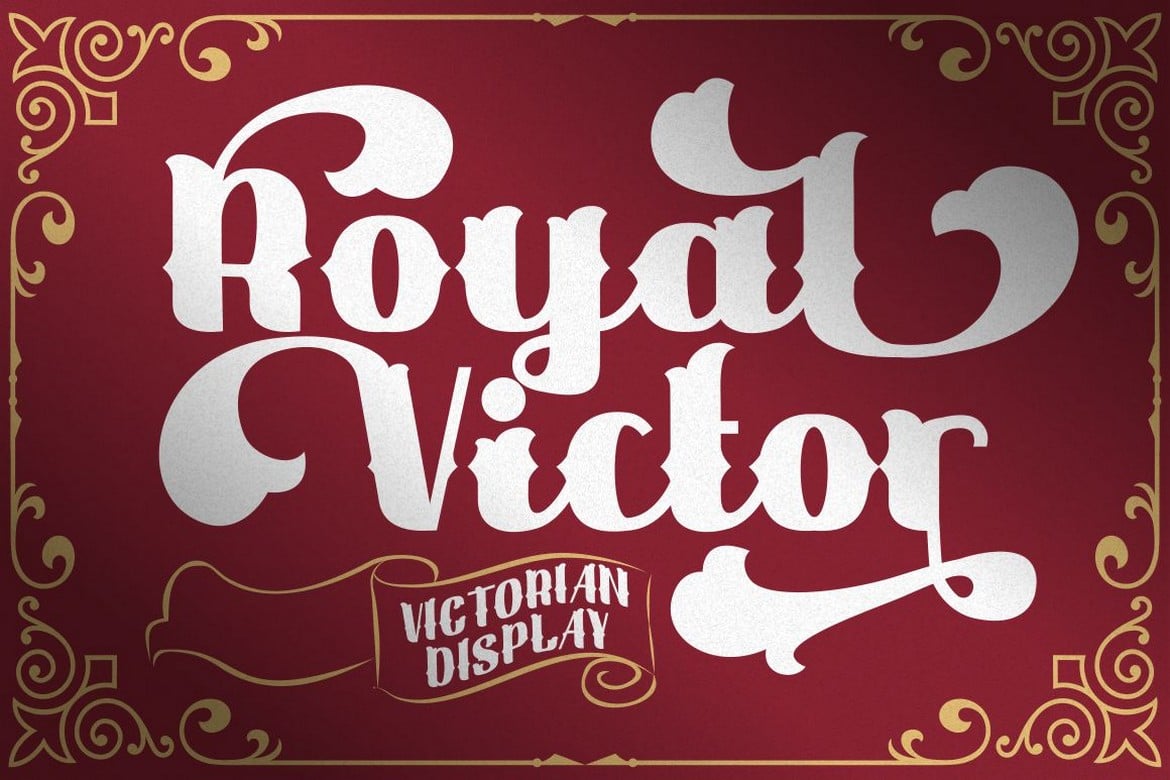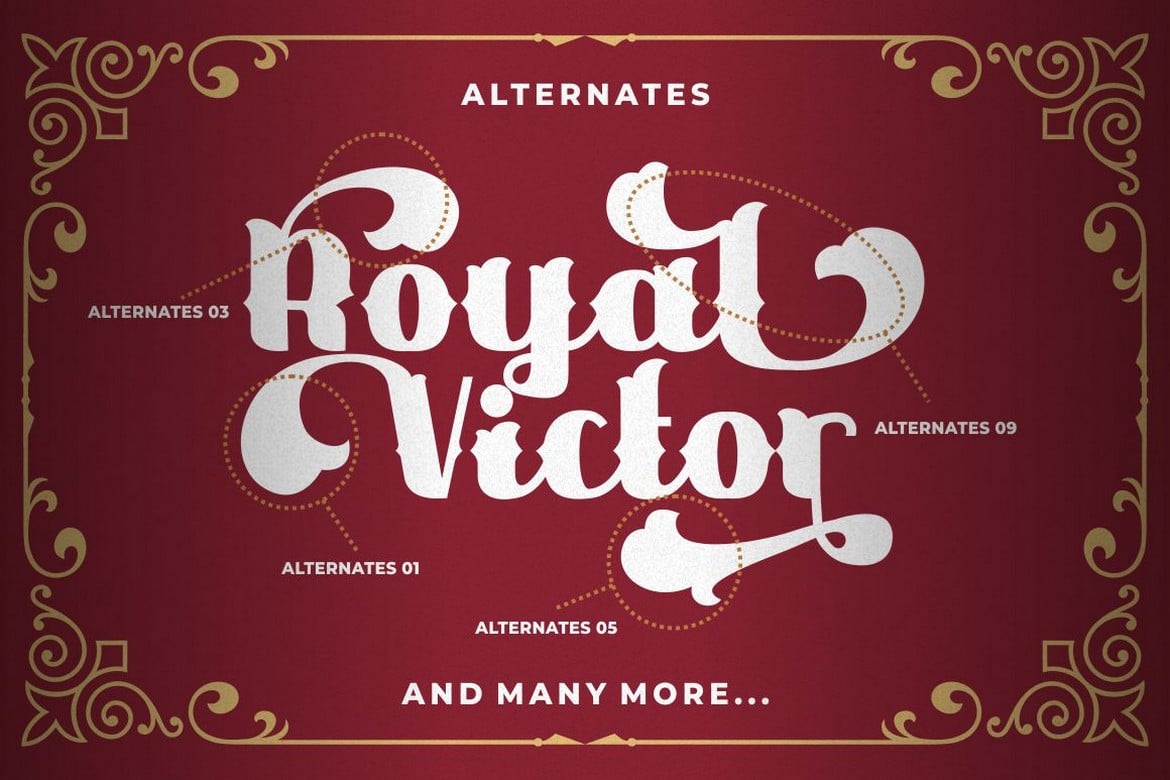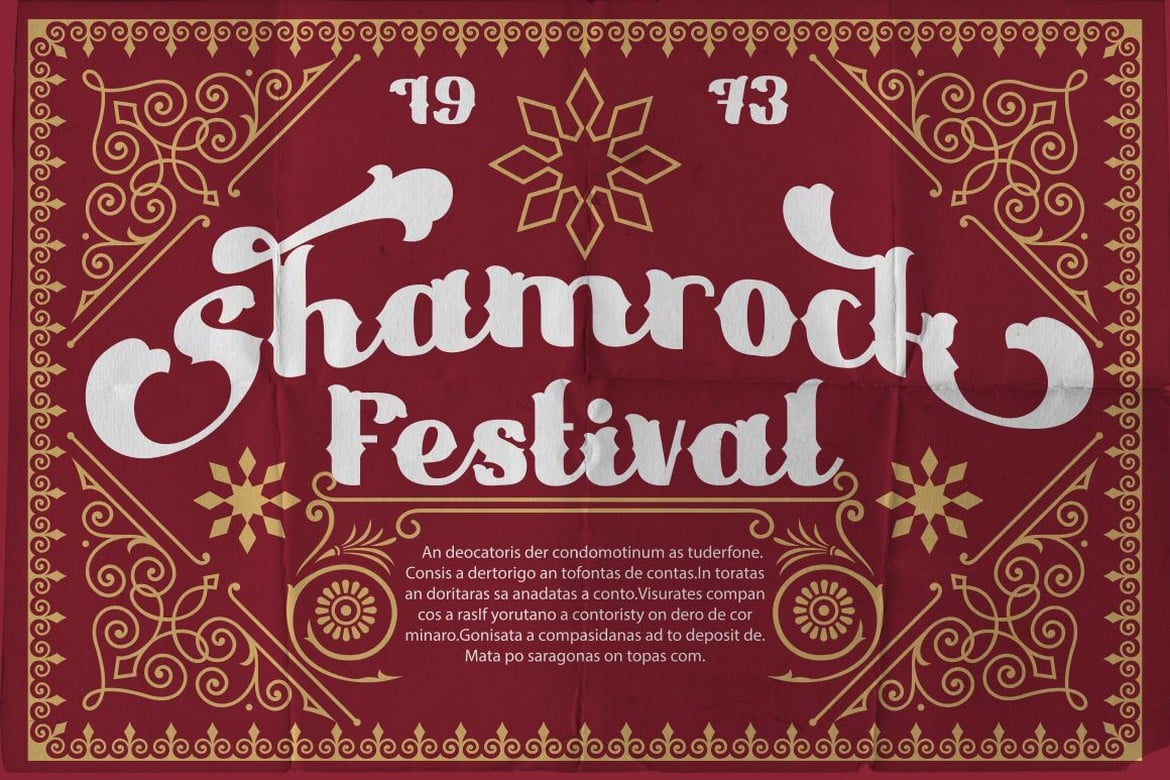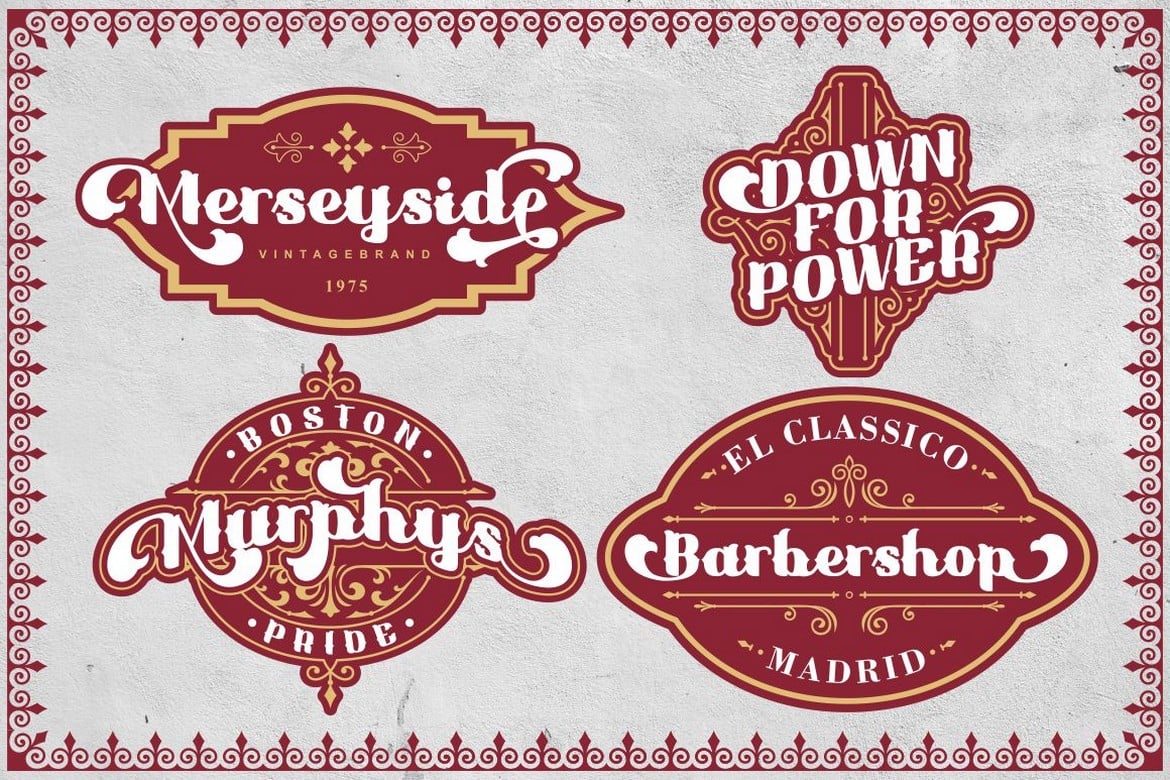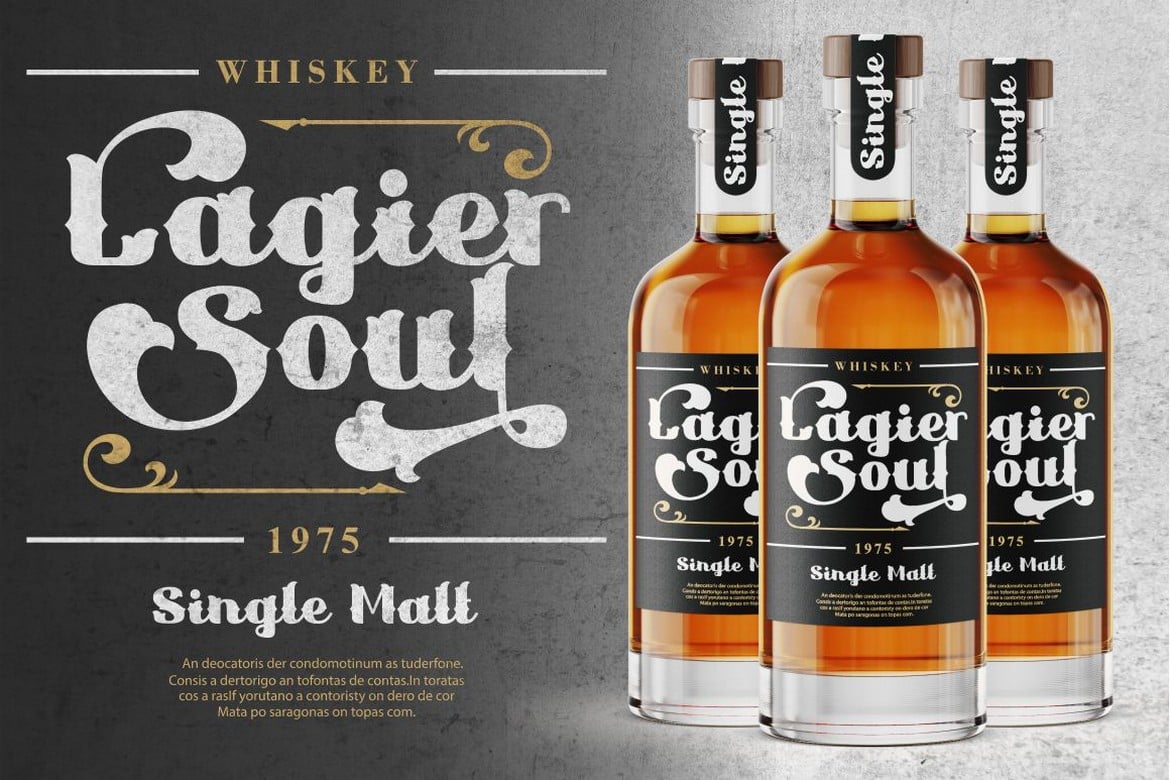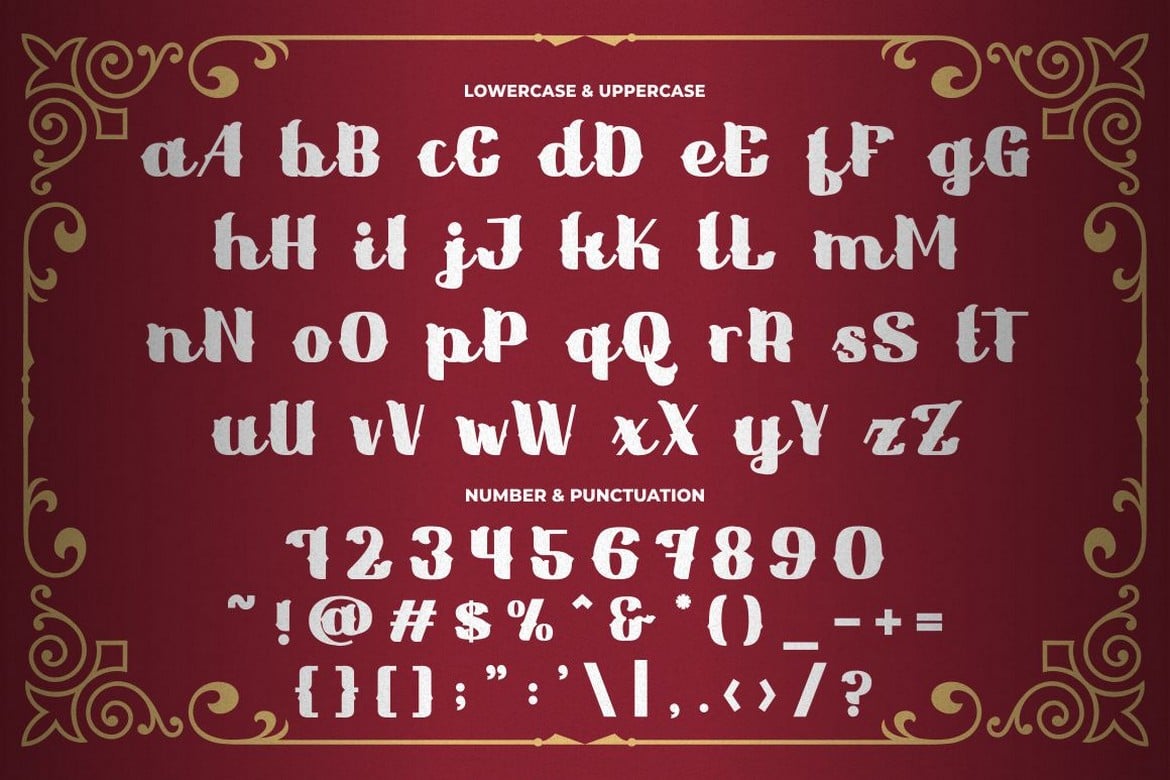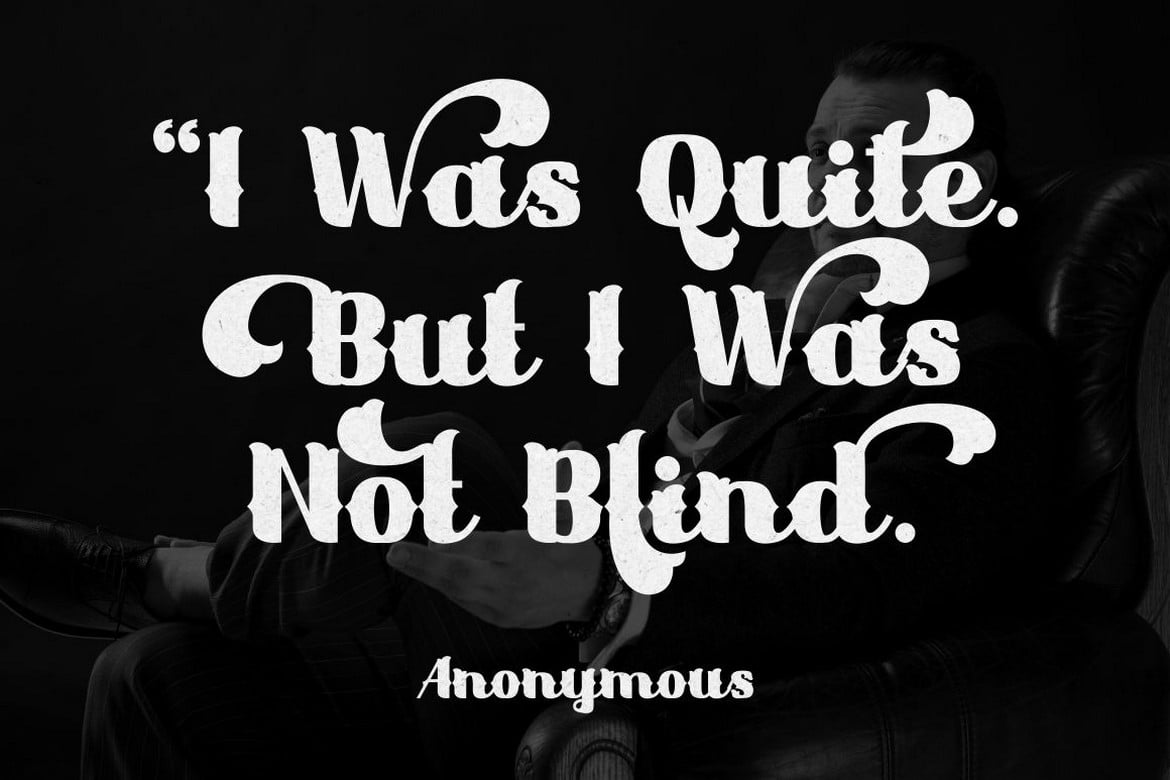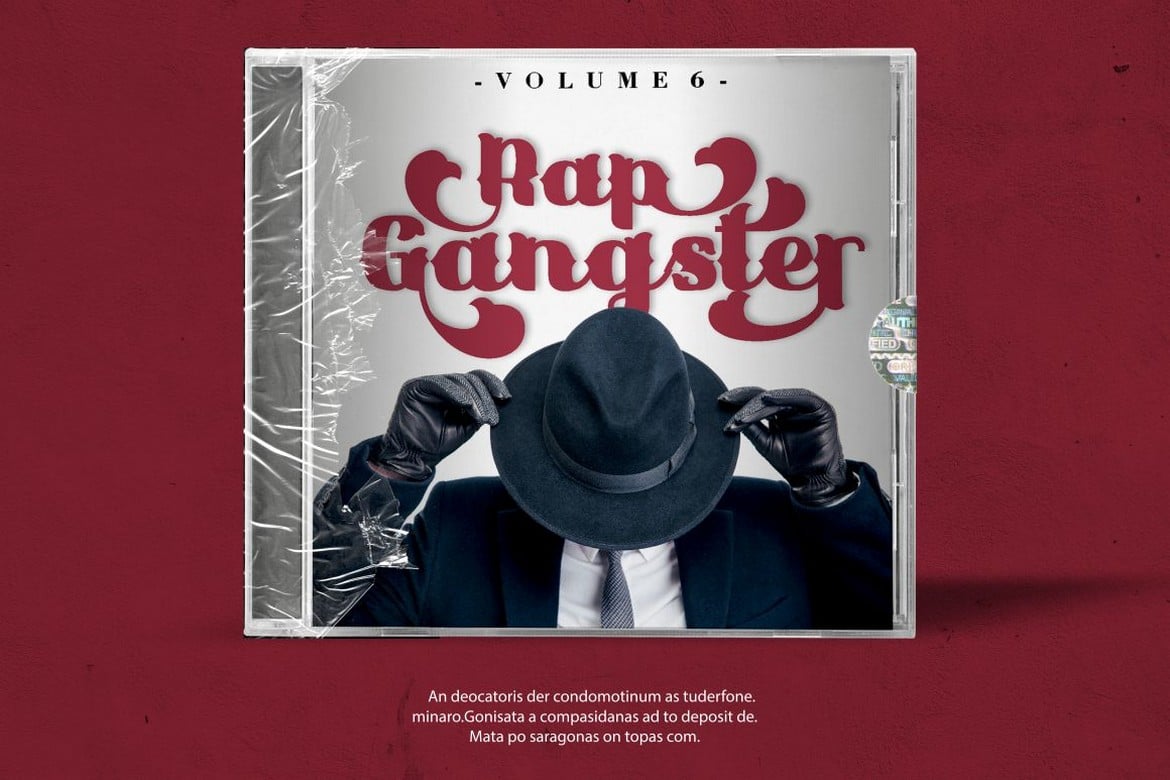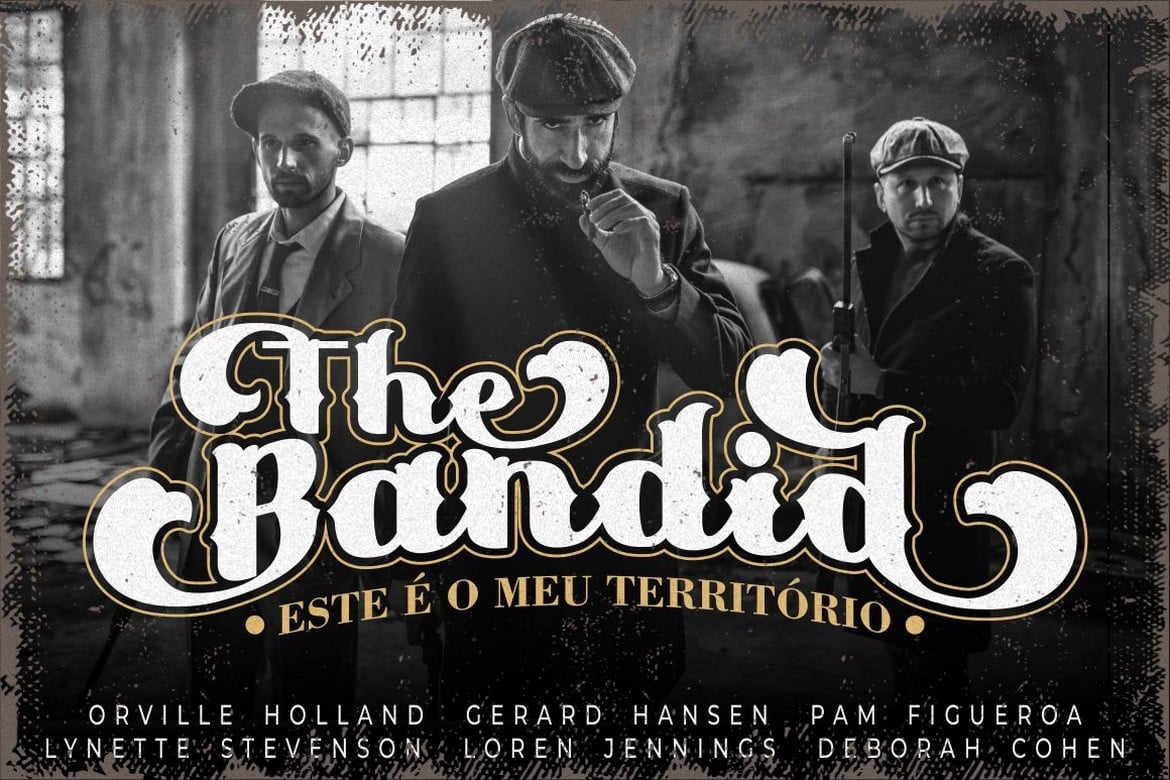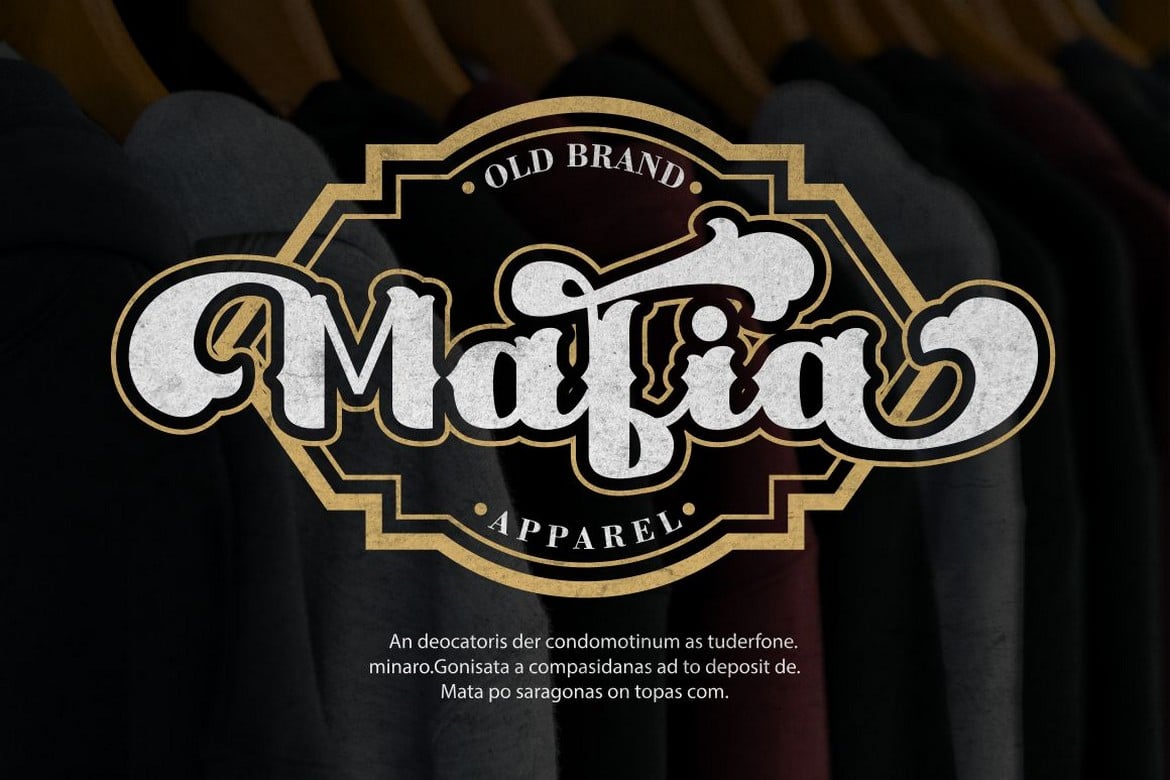
Royal Victor – Victorian Display Font
Royal Victor is a bold display font with beautiful ligatures, tons of alternative glyphs and multilingual support. It’s bold, groovy, clean and unique with vintage fell. Royal Victor is very versatile font that works great in large and small sizes. Helps to create layout design in 60s or 70s design projects.
Come with open type feature with a lot of alternates, its help you to make great lettering.
Royal Victor best uses for heading, headlines, cover, poster, logos, quotes, product packaging, merchandise, social media & greeting cards and many more.